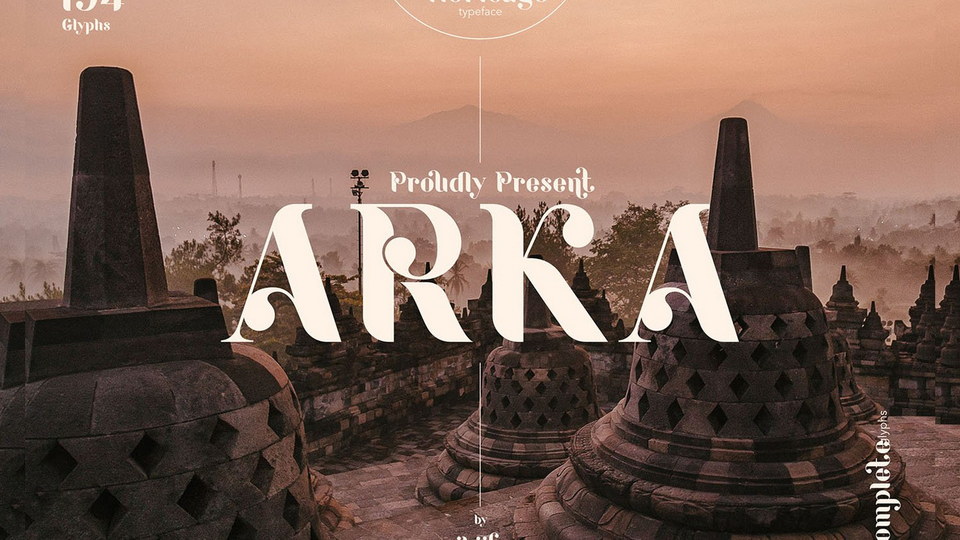
Download Arka font, a beautiful typeface with a heritage feel and look and a touch of craftmanship typeface. Arka is perfect for crafting the traditional style logos, labels, package design, lettering, patterns and others.